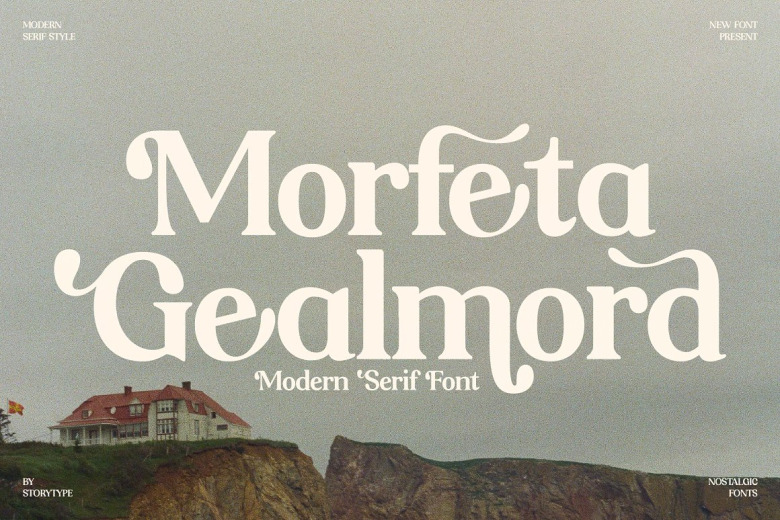
Morfeta Gealmord Font
Morfeta Gealmord Font is a serif modern and classic typeface that has own unique style & modern look. This typeface is perfect for an elegant & luxury logo, book or movie title design, fashion brand, magazine, clothes, lettering, quotes, and so much more.
Morfeta Gealmord Serif Font